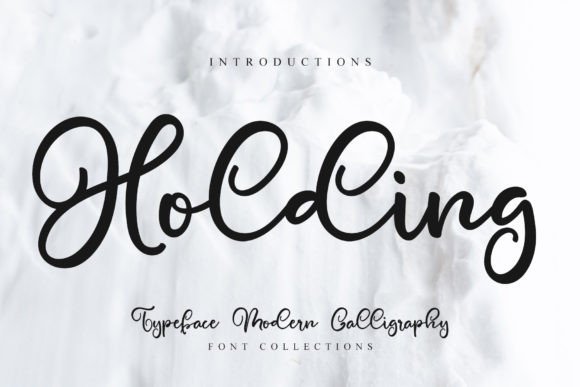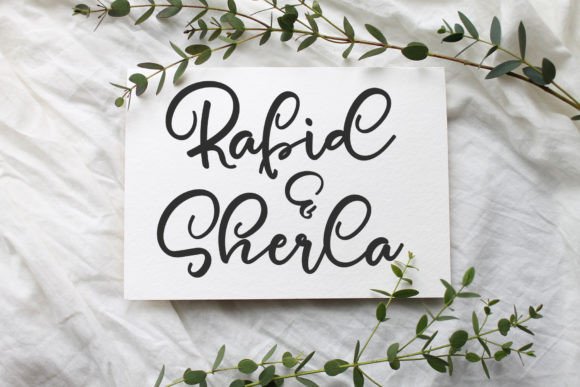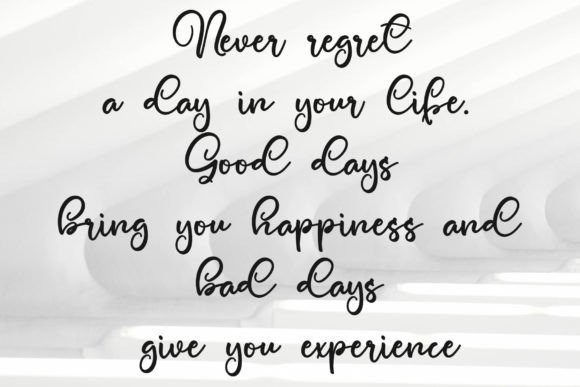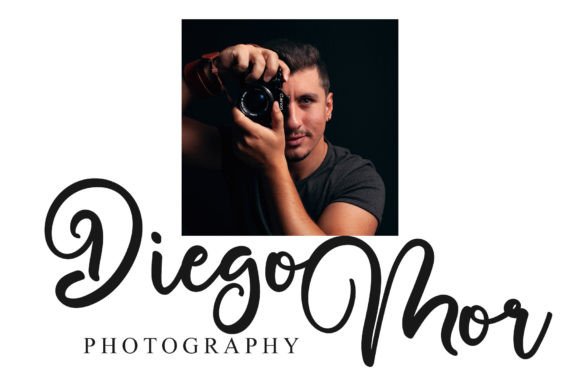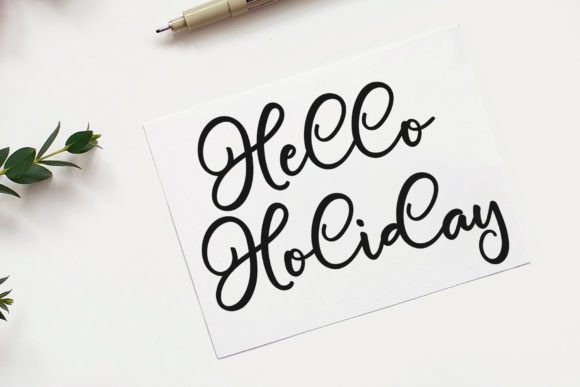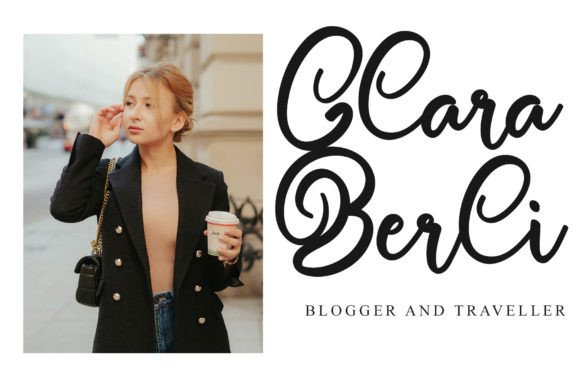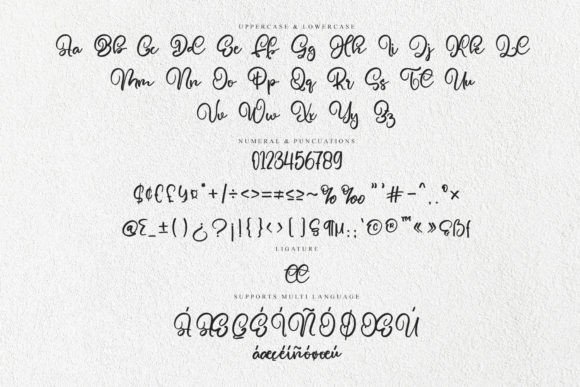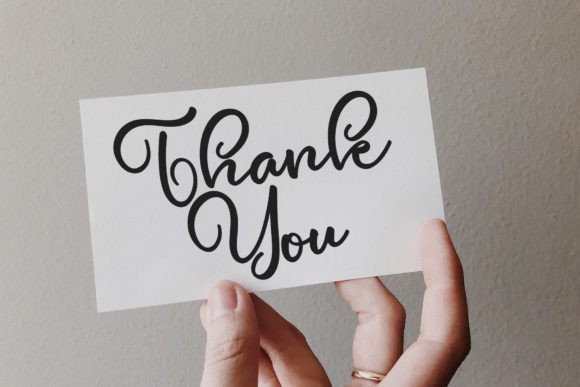
About Holding Font
Holding exudes a playful and handmade charm, presenting itself as an incredibly lively handwritten font. This display font is crafted to infuse a special playful touch into a myriad of design ideas. Masterfully designed, Holding has the potential to become a true favorite, elevating each of your creative ideas to the highest level with its distinctive and vibrant personality.
The playfulness of Holding shines through its handmade quality, giving the font a unique and whimsical appeal. Whether you’re working on branding materials, invitations, posters, or any creative project, Holding adds a special touch that resonates with a sense of spontaneity and joy.
As a display font, Holding stands out prominently, making it an excellent choice for headlines, titles, and any text element that requires attention. Its playful nature ensures that your message is delivered with a lively and dynamic flair, capturing the viewer’s interest.
The font’s versatility is a key strength, allowing it to adapt to a wide range of design ideas. Whether you’re looking to enhance a website, create eye-catching social media graphics, or infuse a touch of fun into packaging, Holding proves to be a reliable and engaging choice.
In summary, Holding is more than just a font; it’s a design tool crafted to bring playfulness and energy to your creative endeavors. Its handmade charm and playful demeanor make it a standout choice for those looking to add a special touch to their designs, ensuring that each project reaches its highest level of visual appeal and creativity.